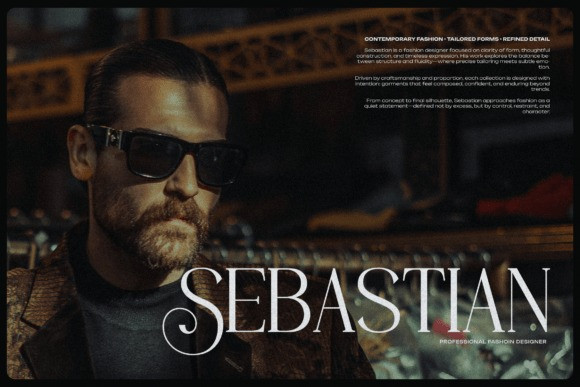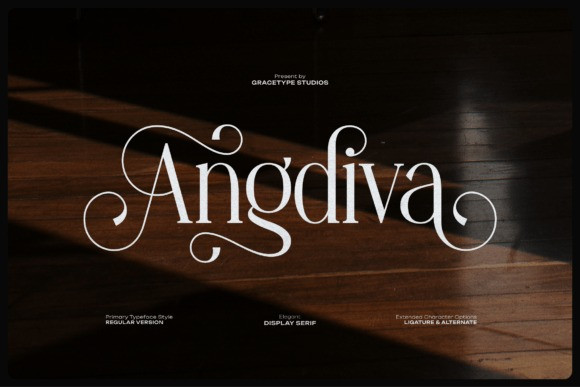
Angdiva Font
Angdiva Font is a celebration of classical beauty infused with modern decorative flair.This Angdiva typeface features high-contrast strokes and breathtaking, sweeping flourishes that transform standard letters into ornate works of art. It is the ultimate Angdiva font for high-fashion editorial, luxury product packaging, and premium event stationery. With its extended character options and intricate ligatures, the Angdiva typeface offers endless possibilities for creating one-of-a-kind wordmarks.
Use it for perfume labels, jewelry branding, or boutique hotel identities to instantly elevate the brand’s perceived value and aesthetic charm.